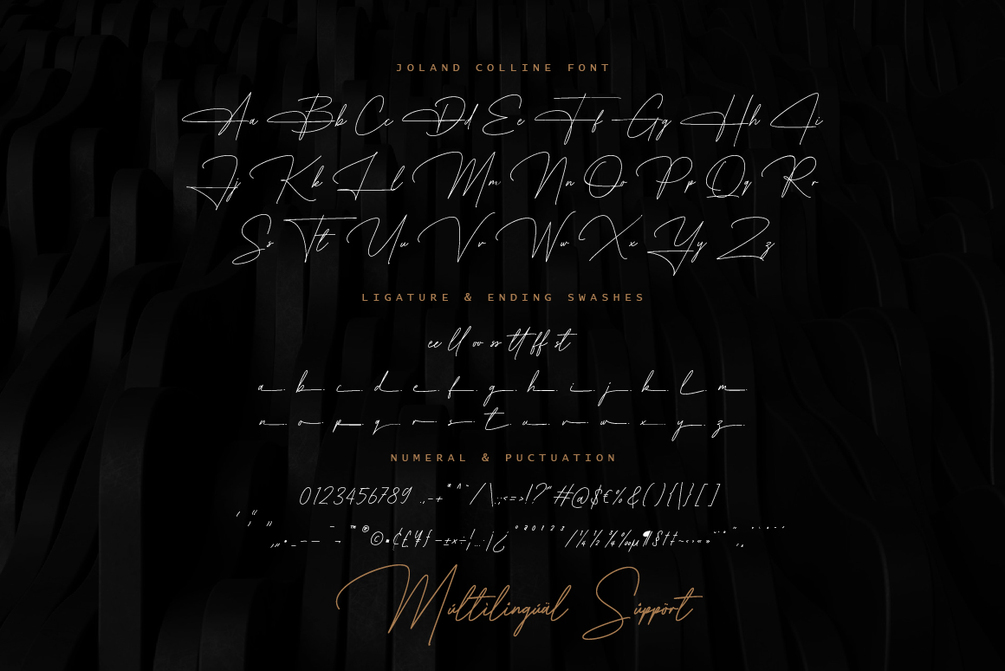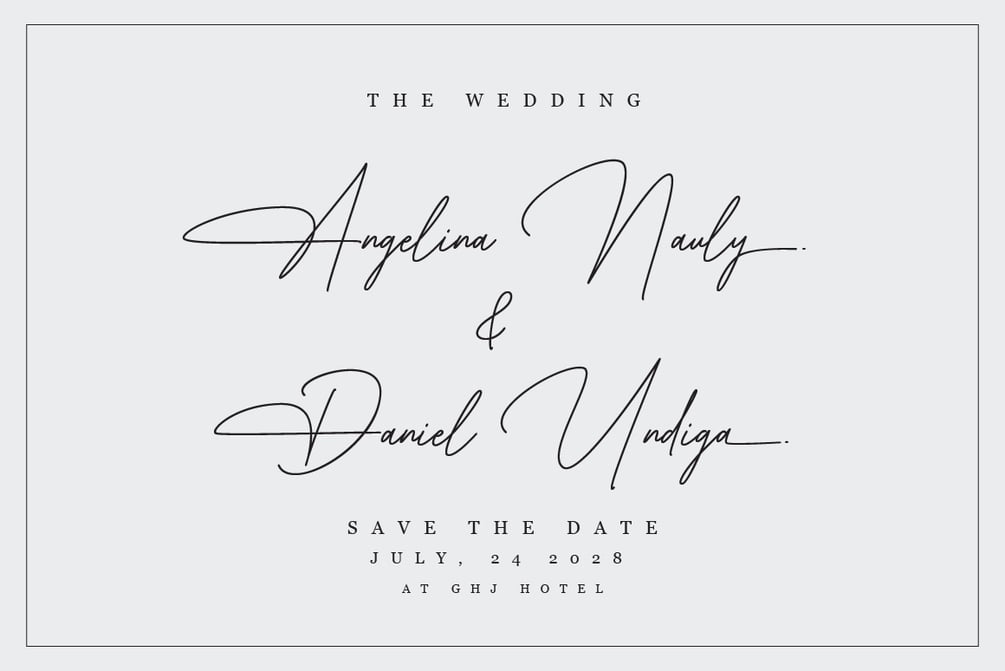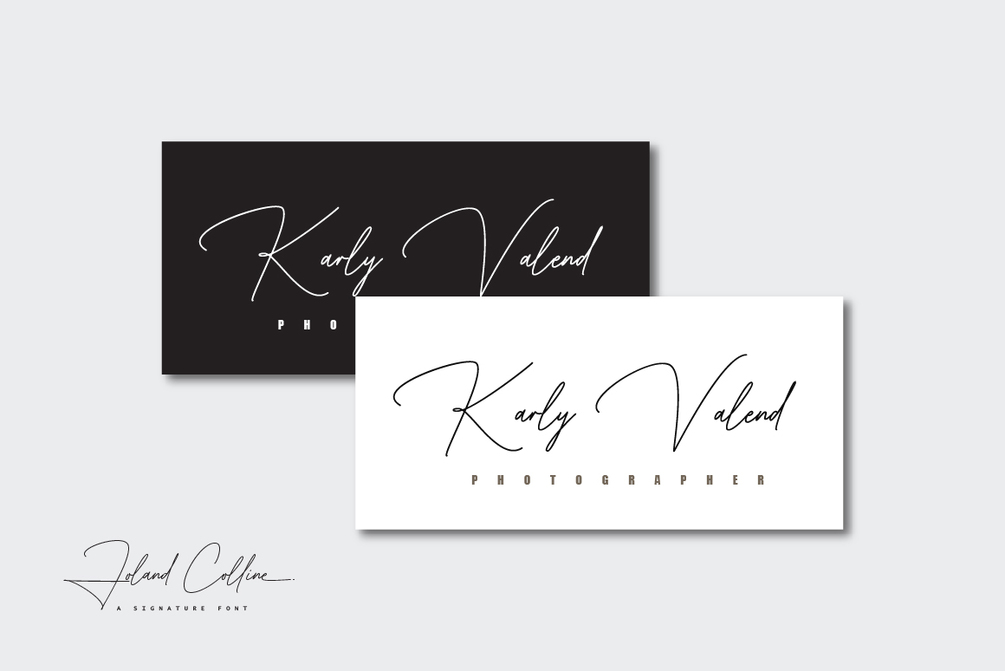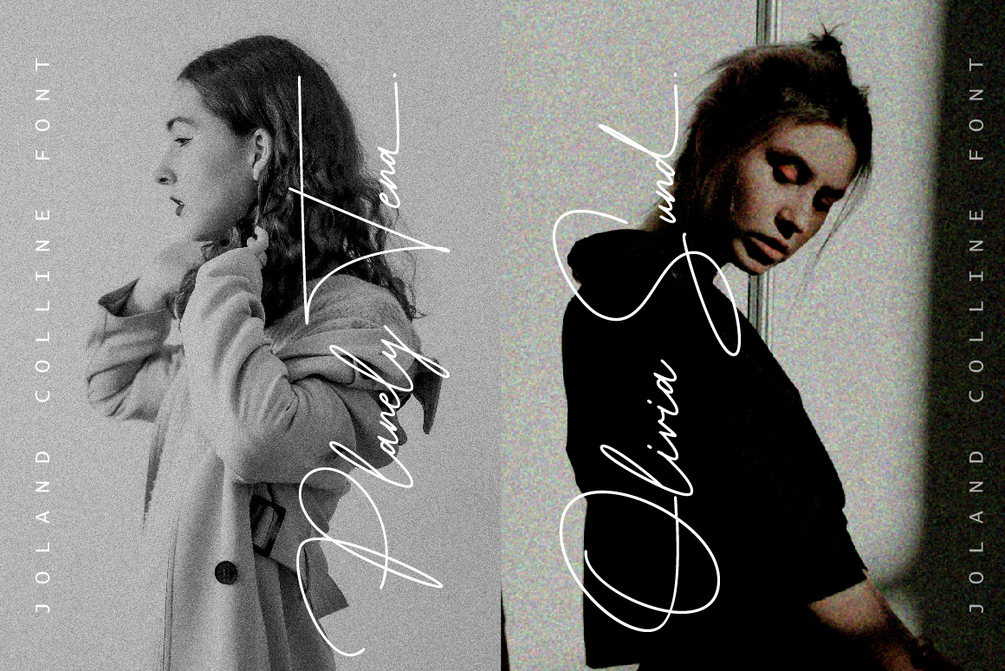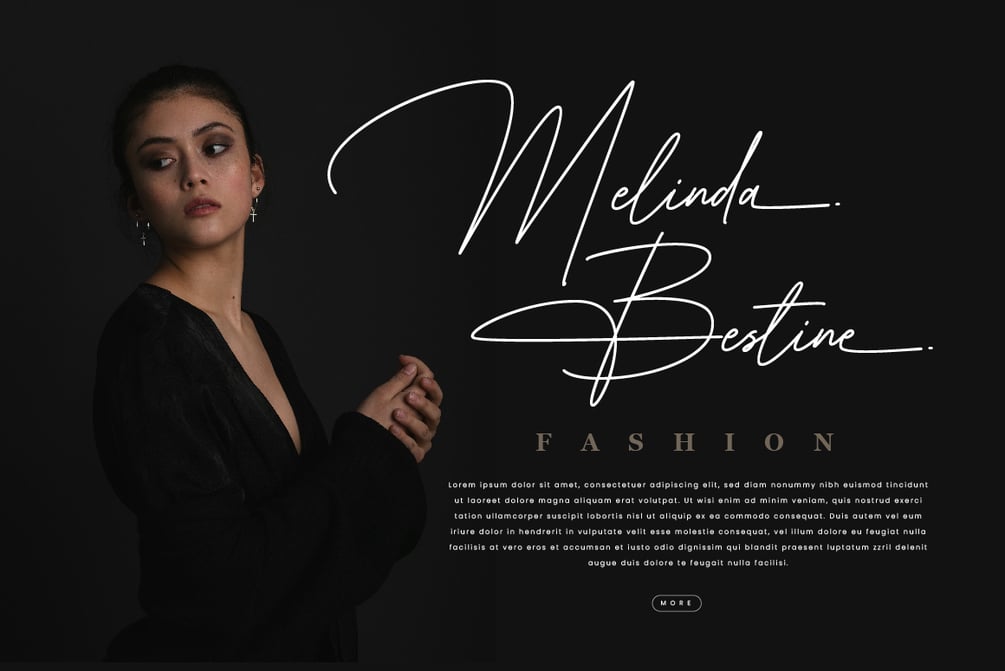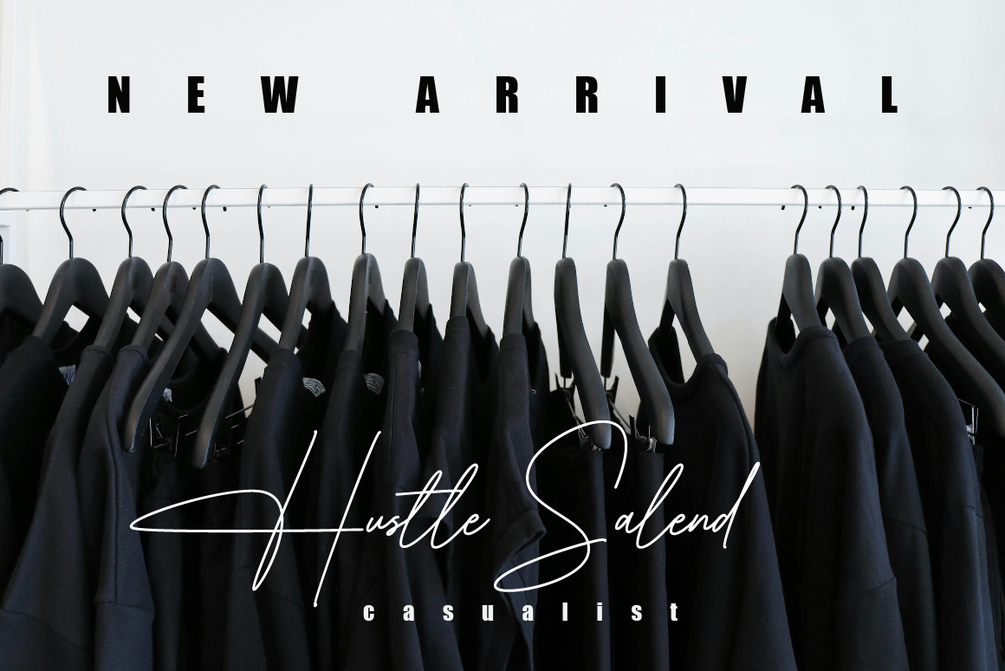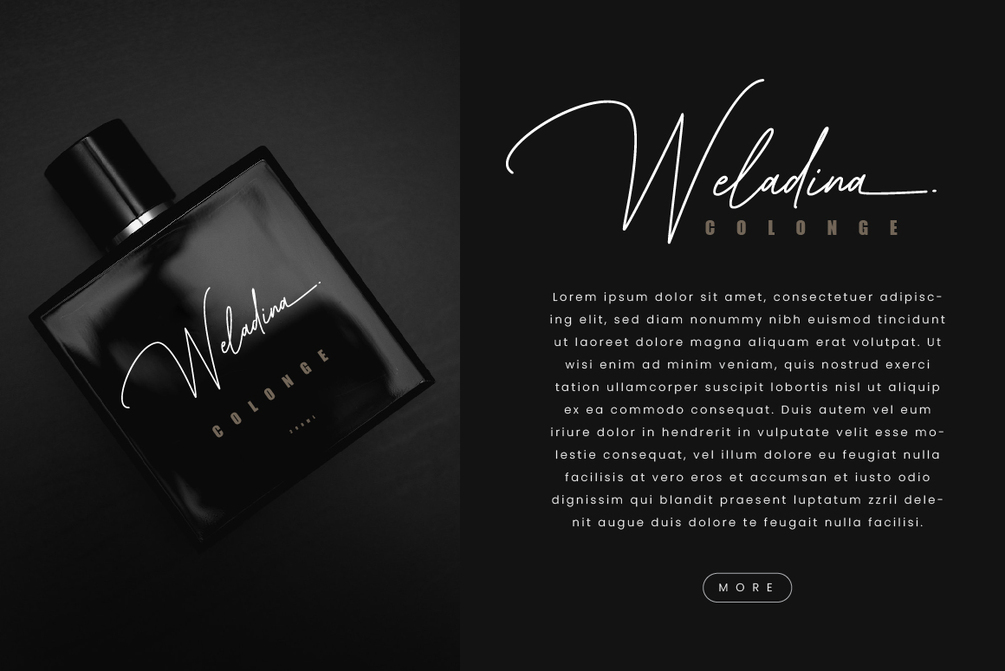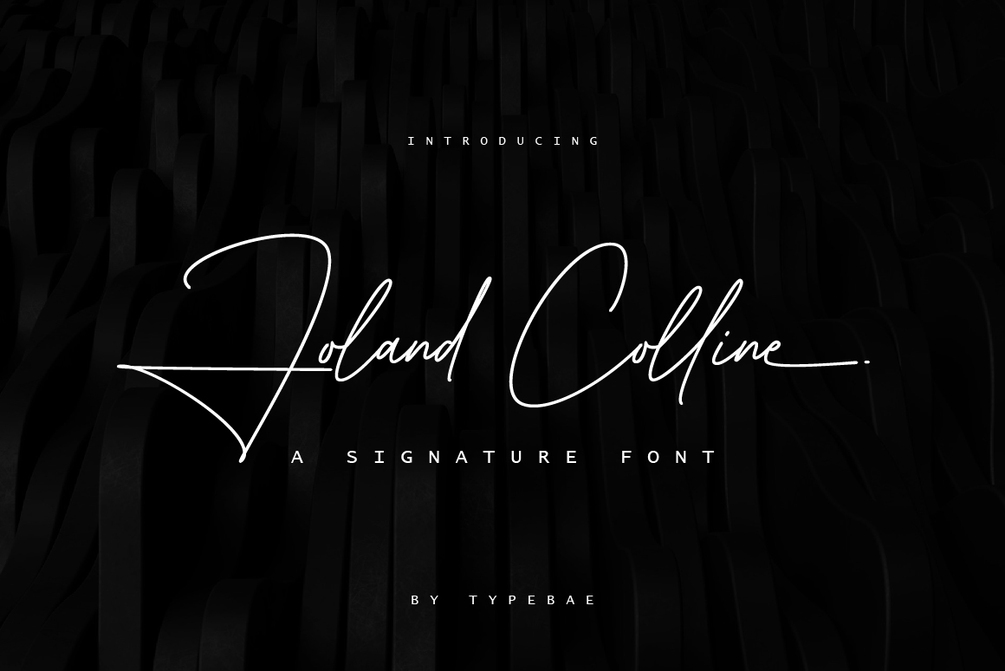
Joland Colline
Joland Colline is an elegant signature font with a natural, refined handwritten touch. and stylish flow with elegant tails at the end of each lowercase letter. This font includes ligatures that allow specific letter combinations to connect seamlessly, creating a more natural and authentic look. It's an ideal choice for various projects that require a touch of effortless handwriting charm.
Feature: Ligature, Alternate (Tails), Multilingual and PUA encoded.